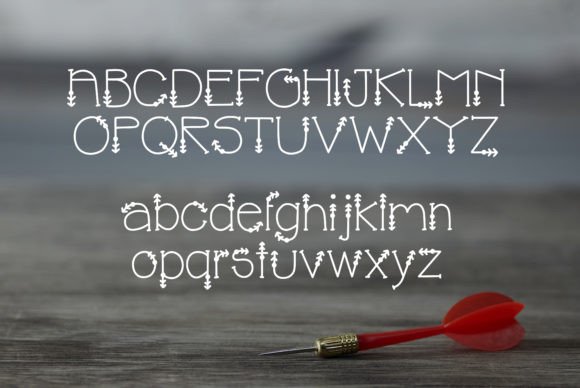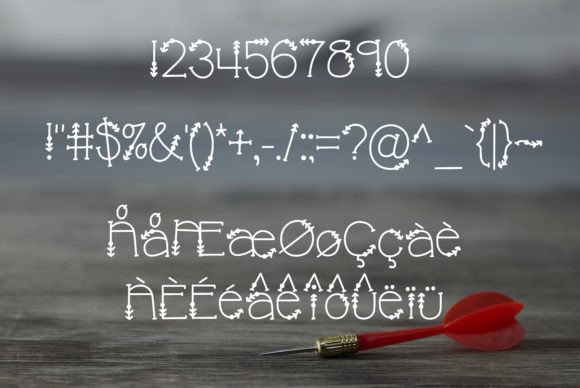
Introducing Dart: The Font That Hits the Mark!
Are you tired of using the same old fonts for your design projects? Look no further! We’re excited to introduce Dart, a font that’s sure to capture attention with its sleek, arrow-tipped lines and whimsical touches. Whether you’re a designer, crafter, or simply someone who loves to add a personal touch to your work, Dart is the perfect choice for anyone looking to add some flair to their projects.
The Perfect Blend of Style and Whimsy
Dart’s unique style is a perfect blend of modern and playful, making it ideal for a wide range of design projects. From logos and posters to creative invitations and more, this font brings a fun and adventurous vibe to any project. The arrow-tipped lines give the font a sense of movement and energy, while the whimsical touches add a touch of personality and charm.
What Makes Dart So Special?
So, what sets Dart apart from other fonts? Here are just a few things that make it truly special:
- Unique lettering style: Every letter in the Dart font has its own personality, with arrow-tipped lines and whimsical touches that add a touch of flair to any project.
- Versatile: Dart is perfect for a wide range of design projects, from logos and posters to invitations and more.
- Playful and adventurous: The font’s sleek, modern lines and whimsical touches give it a fun and adventurous vibe that’s sure to capture attention.
- Rustic and quirky: Dart’s unique style also has a rustic, quirky feel that’s perfect for designers and crafters who want to add a personal touch to their work.
Dart is a font that’s designed with designers and crafters in mind. Whether you’re creating a logo for a new business, designing a poster for a event, or simply looking for a unique font to add some personality to your craft projects, Dart is the perfect choice.
For designers, Dart offers a wide range of possibilities, from bold and eye-catching to more subtle and sophisticated. The font’s versatility makes it easy to use in a variety of design projects, and its unique style is sure to help your work stand out.
For crafters, Dart is a great way to add a personal touch to your projects. Whether you’re creating handmade cards, gift tags, or other paper crafts, this font is sure to add a touch of whimsy and charm.
How to Use Dart in Your Design Projects
Using Dart in your design projects is easy! Here are a few tips to get you started:
- Use it as a headline font: Dart’s bold, eye-catching style makes it perfect for use as a headline font in posters, flyers, and other design projects.
- Add it to your logo designs: The font’s unique style makes it a great choice for logos and branding projects.
- Use it in invitations and greeting cards: Dart’s whimsical touches make it perfect for use in invitations, greeting cards, and other paper crafts.
In conclusion, Dart is a font that’s sure to hit the mark with designers and crafters alike. Its unique blend of style and whimsy makes it perfect for a wide range of design projects, from logos and posters to invitations and more. With its sleek, arrow-tipped lines and whimsical touches, Dart is the perfect choice for anyone looking to add some flair to their work.